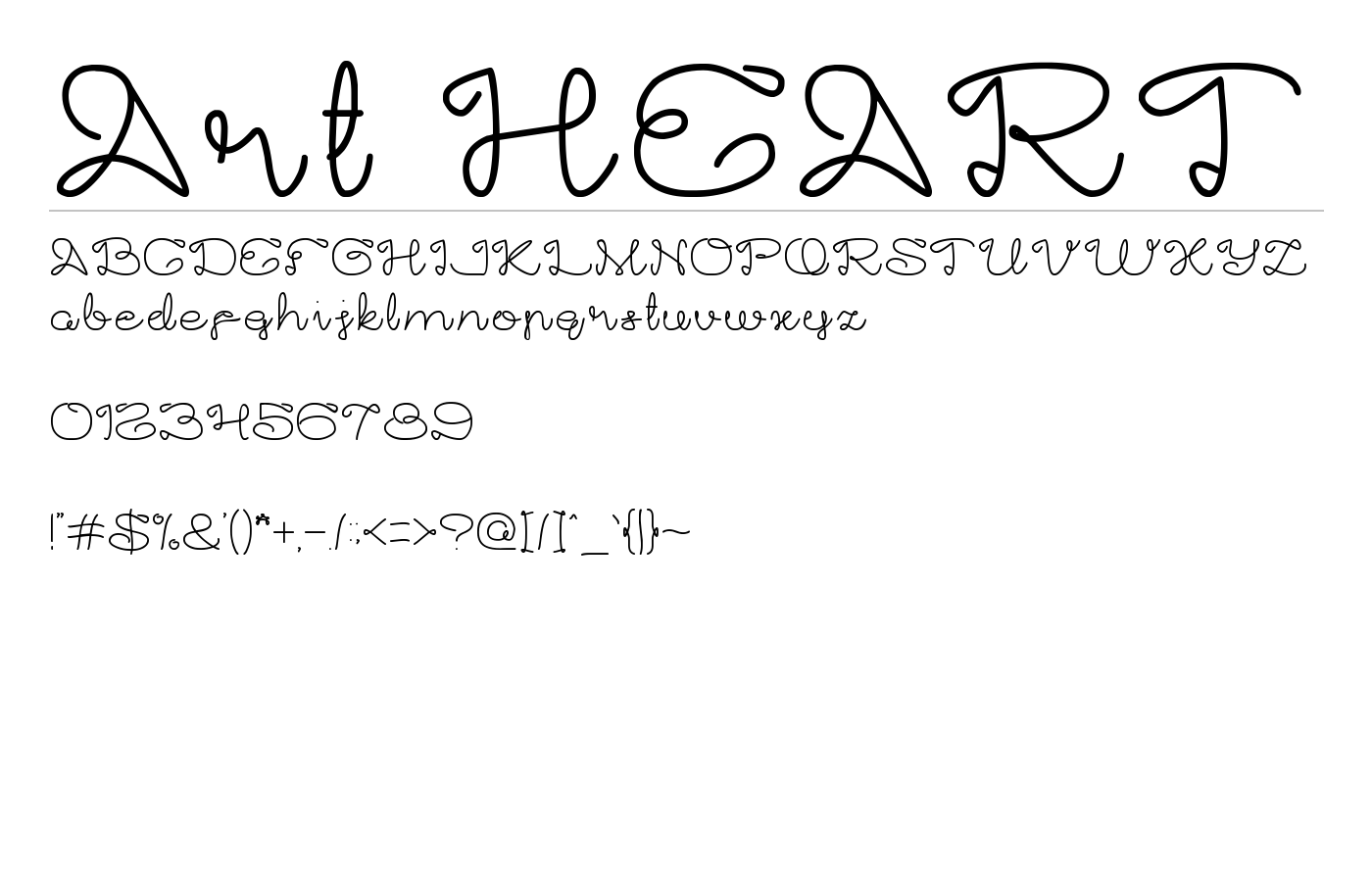
Art HEART is a delicate, whimsical script font with thin, flowing lines and charming, rounded shapes that create a playful yet elegant feel. Its high x-height and unique looping letterforms make it perfect for creative projects like invitations, greeting cards, and lighthearted branding, where a touch of artistic personality is desired. This font’s airy, handcrafted style brings a sense of warmth and individuality, ideal for designs that want to stand out with a soft, friendly vibe.
Art HEART Font
About Art HEART Font